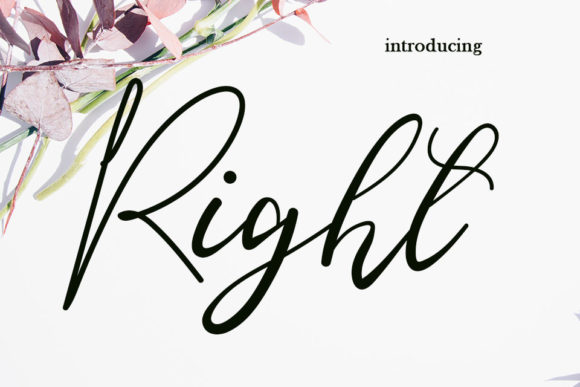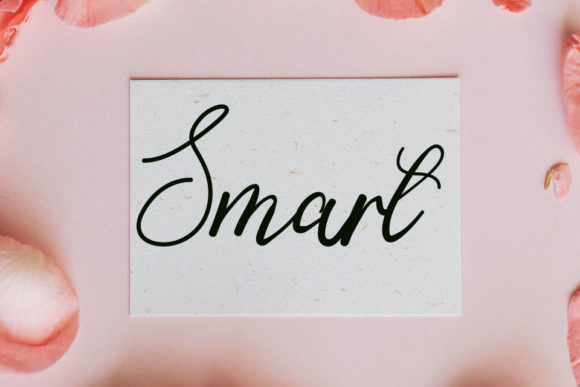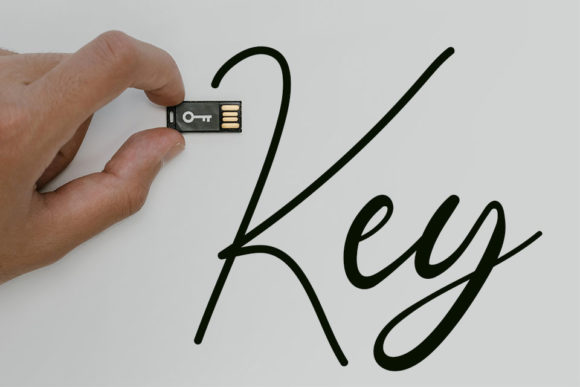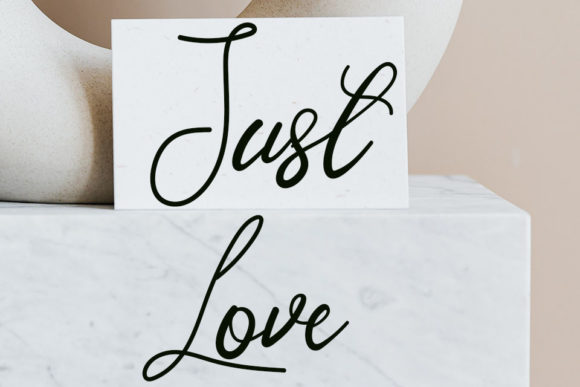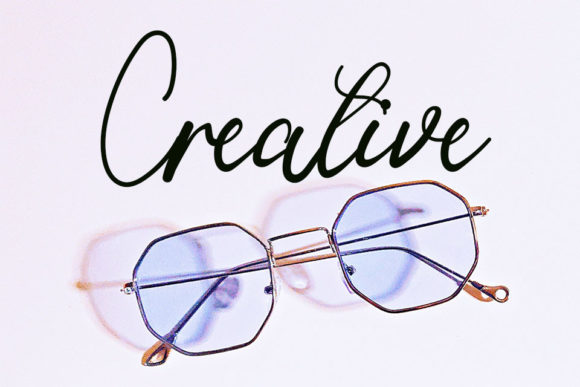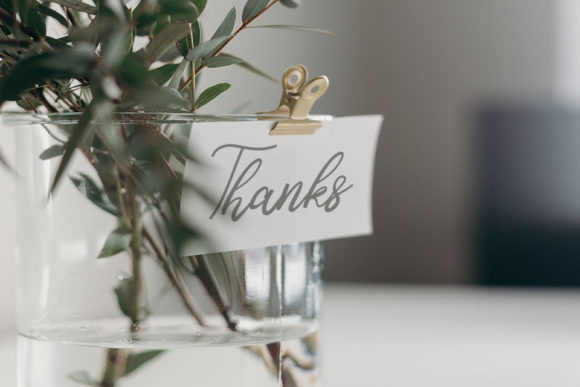
Right Font
About Right Font
“Right” is not just a font—it’s an exquisite handwritten typeface that exudes elegance and charm. Masterfully designed to become a true favorite among designers, this font maintains its classy calligraphic influences while also feeling contemporary and fresh.
The graceful strokes and delicate curves of “Right” give it a timeless quality that makes it suitable for a wide range of design projects. Whether used for branding materials, wedding invitations, packaging, or any other creative endeavor, this font adds a touch of sophistication and style that elevates your work to the highest levels.
Moreover, “Right” is designed to be versatile and practical. Its well-crafted letterforms ensure readability across various mediums and platforms, ensuring your message is effectively communicated to your audience.
In summary, “Right” is more than just a font—it’s a versatile and elegant tool that empowers designers to create stunning and impactful designs with ease. Fall in love with its charm and bring your projects to new heights with “Right” as your go-to typeface.